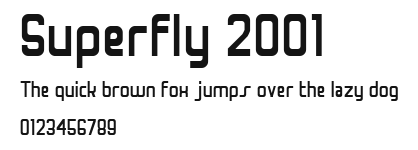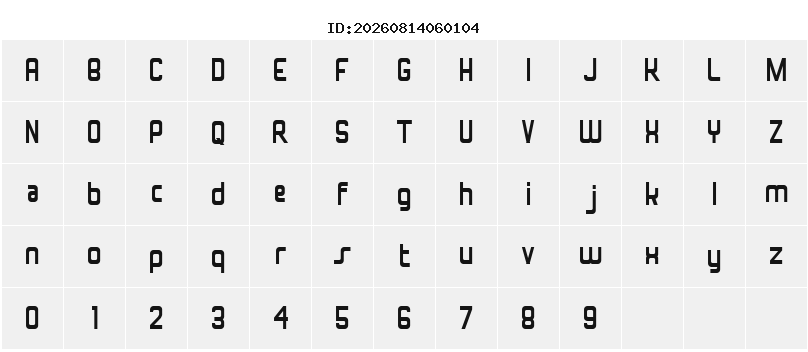
Superfly 2001 Preview
• Font Name: Superfly 2001
• Font Style: Heavy
• Font ID: Superfly 2001 Normal
• Full Font Name: Superfly 2001 Heavy
About Superfly 2001.ttf
Superfly 2001.ttf is a modern, elegant sans-serif font designed for ultimate readability and visual harmony. Perfect for branding, headlines, web design, and print materials.